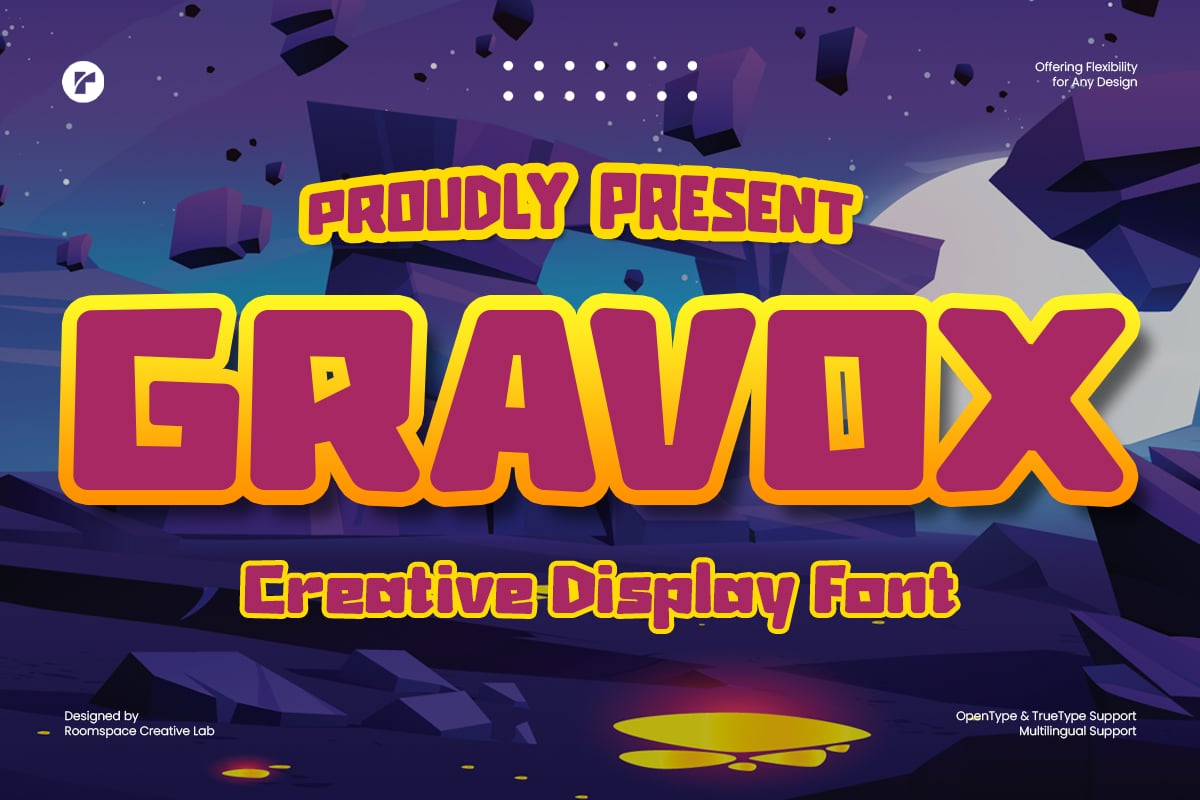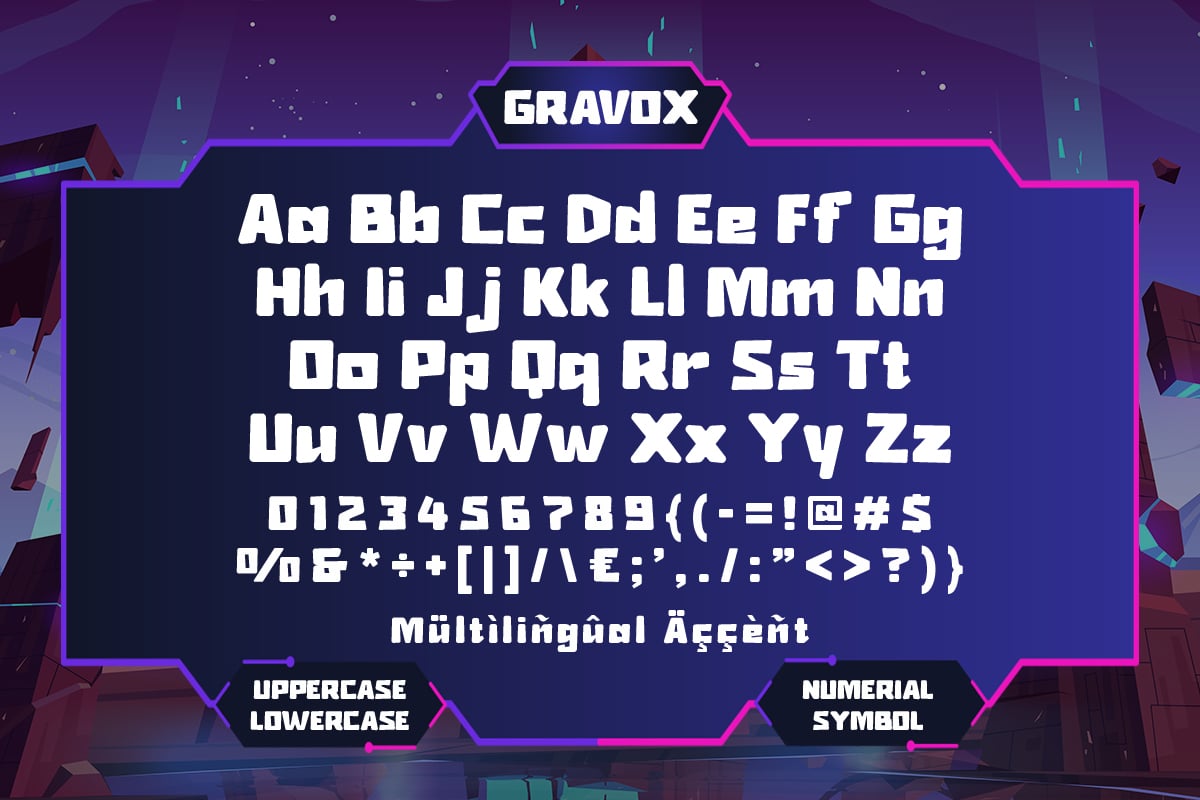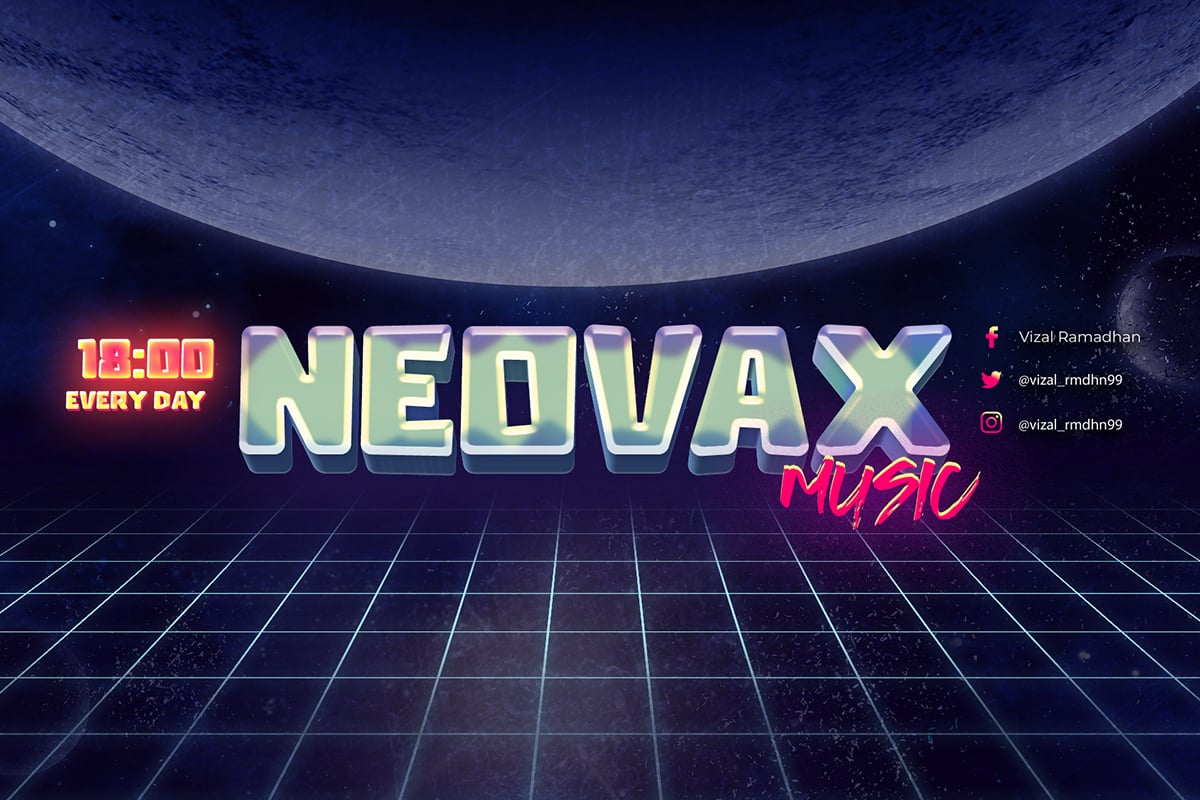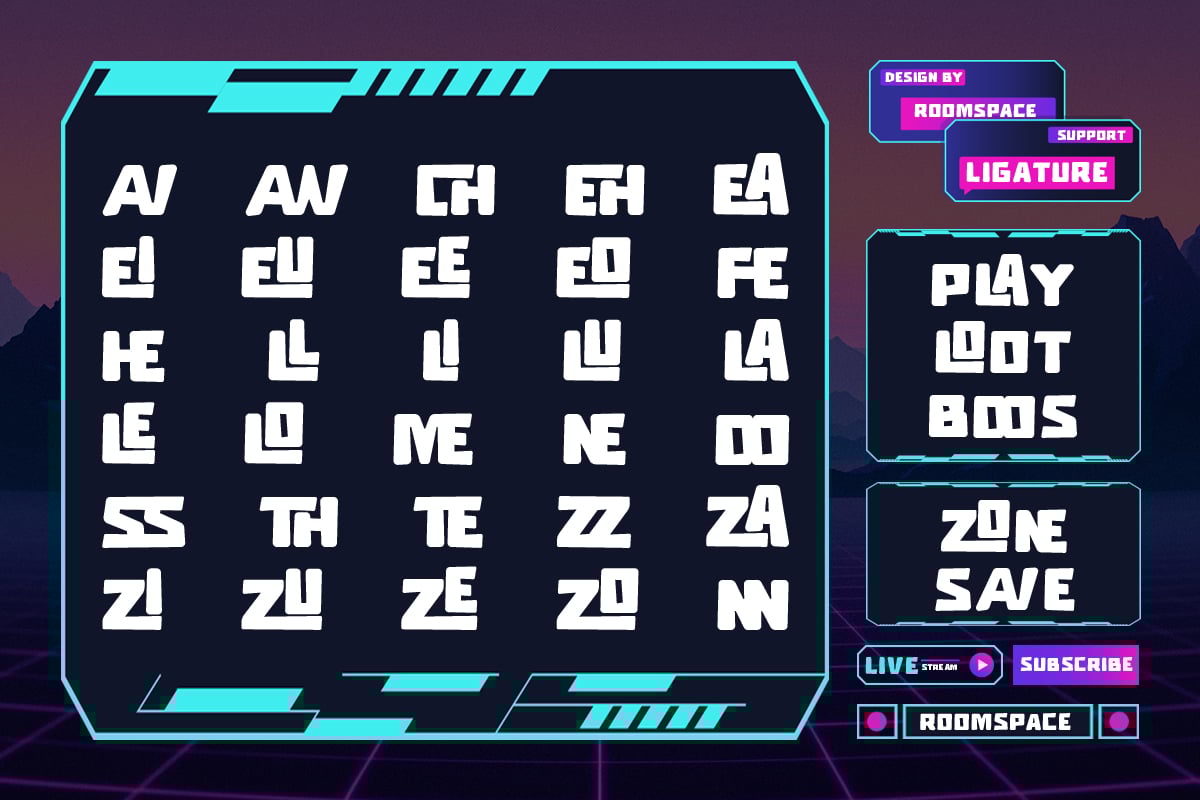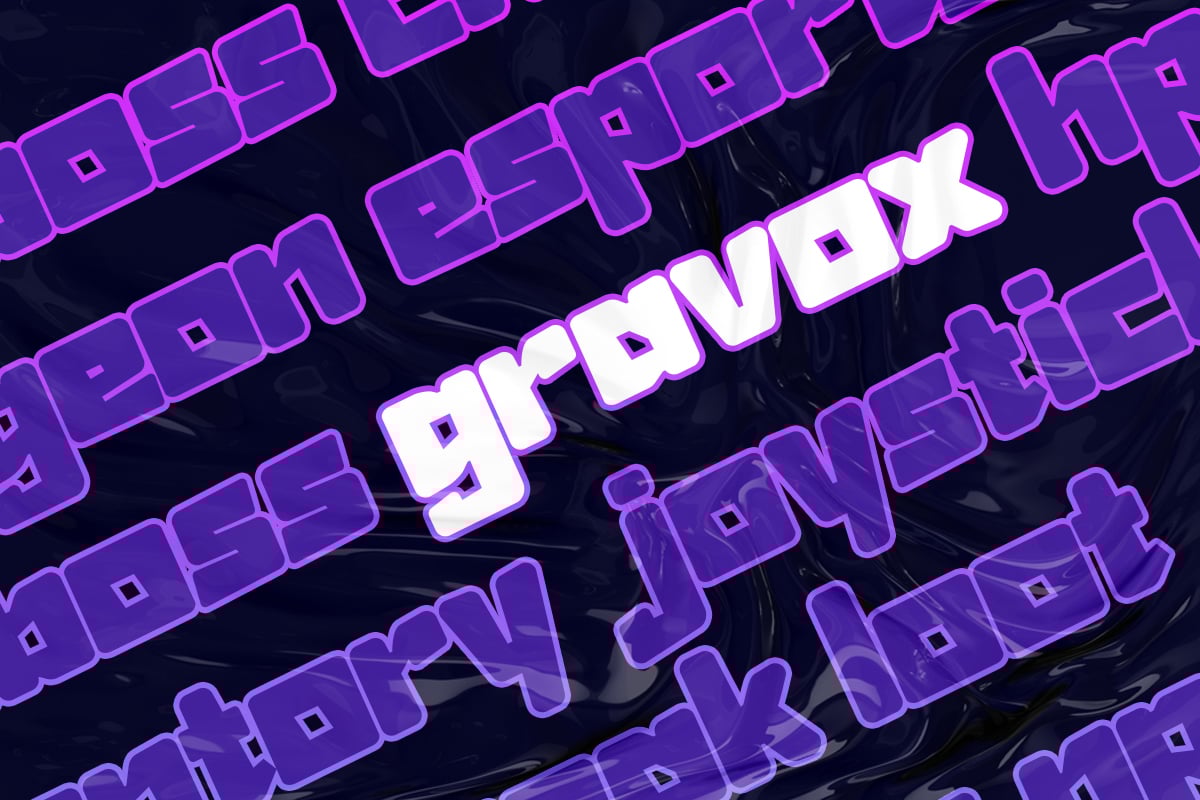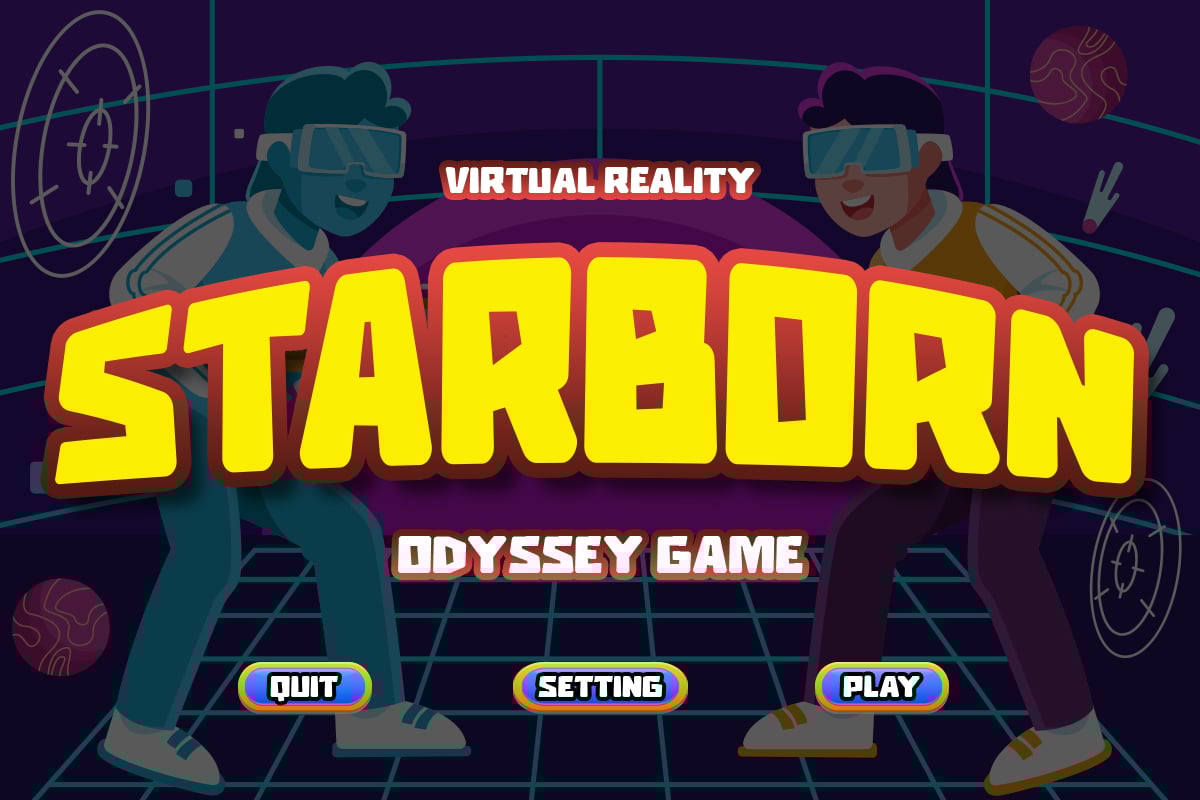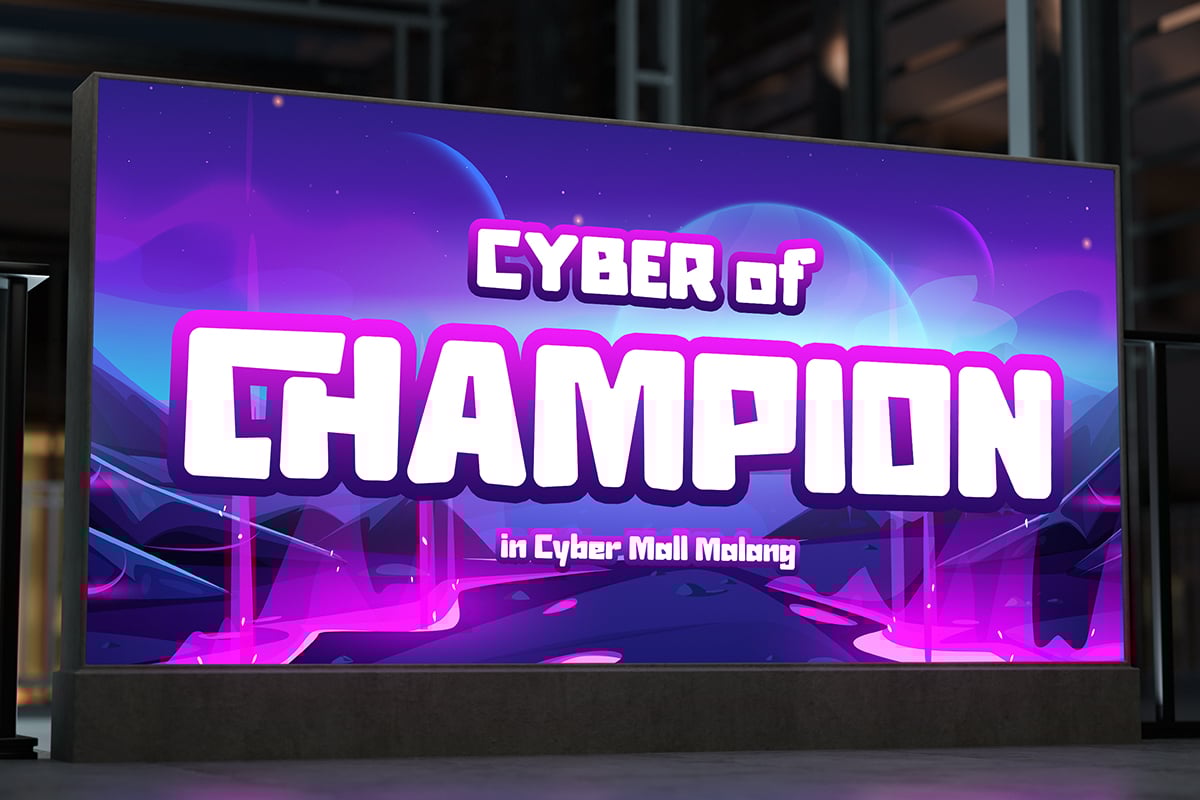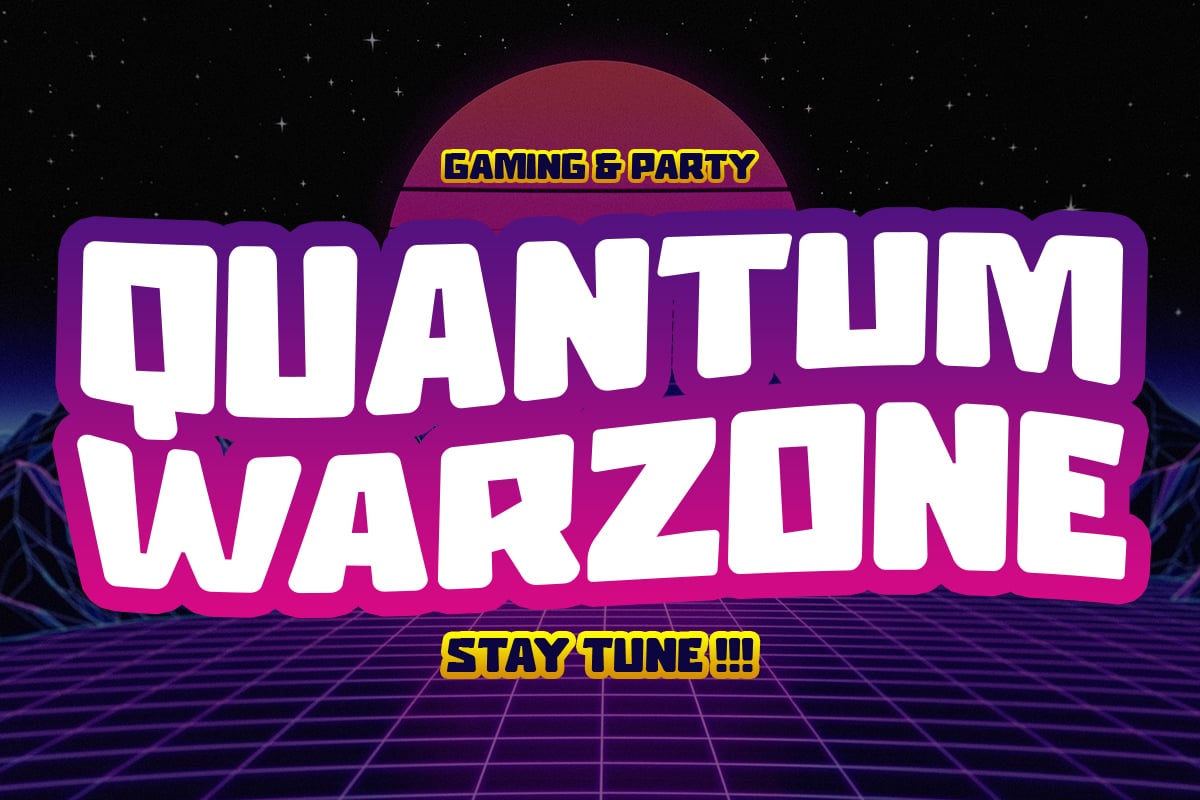
Gravox Space Modern Futuristic Game Font
Future of gaming typography with Gravox, a bold and dynamic font designed for gamers, developers, and creative minds. Inspired by arcade classics, Nintendo aesthetics, and modern futuristic displays, Gravox is the perfect typeface for game titles, posters, UI design, and branding.
With its sleek sans-serif style, versatile variable features, and playful yet sharp letterforms, Gravox brings a high-energy, digital look to any project. Whether you’re designing for kids’ games, retro-inspired visuals, or high-tech branding, this font delivers fun, readability, and impact.